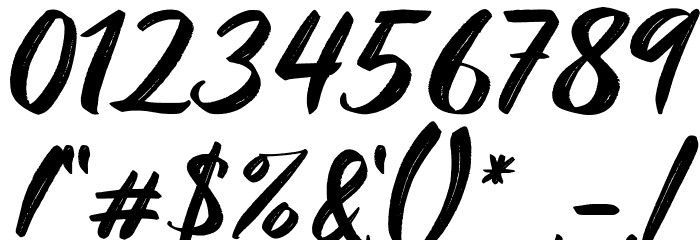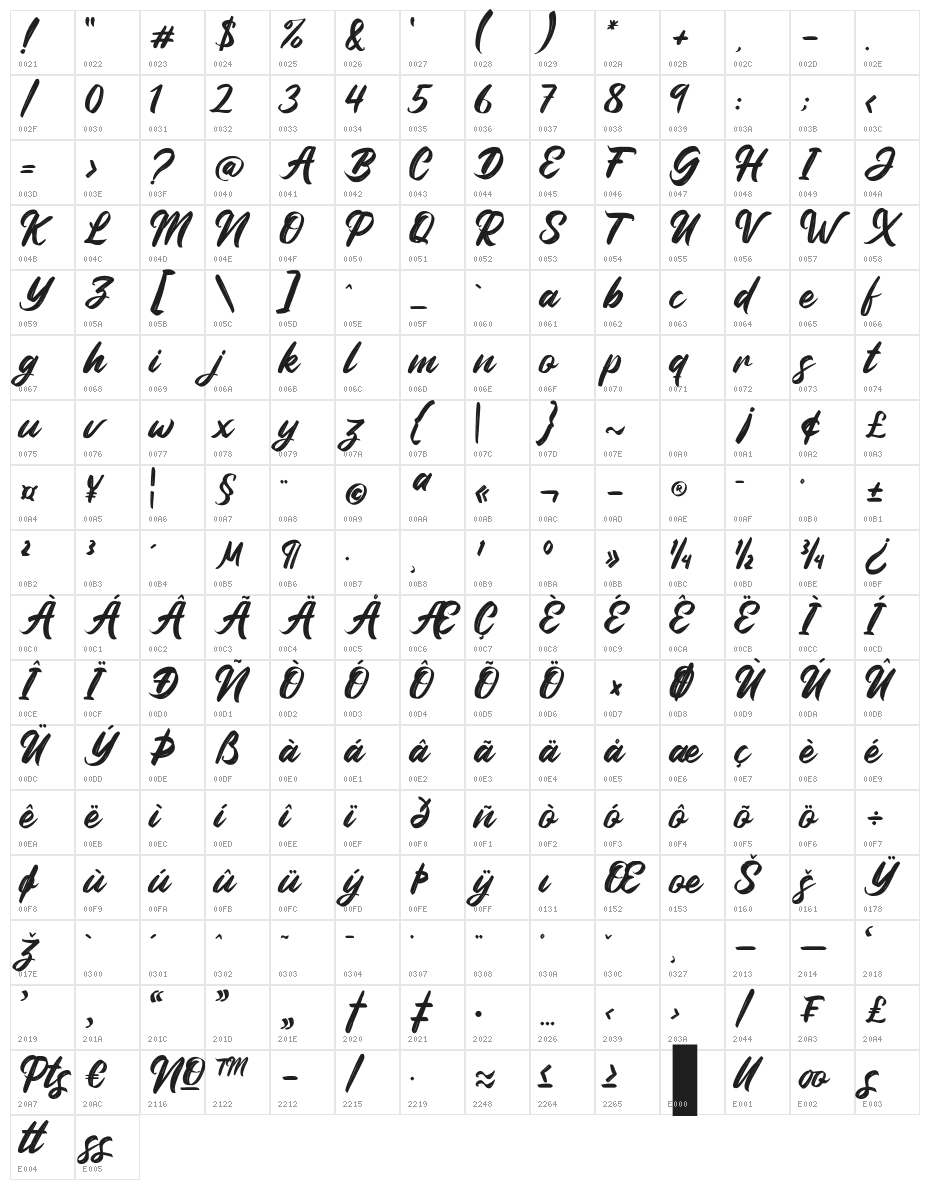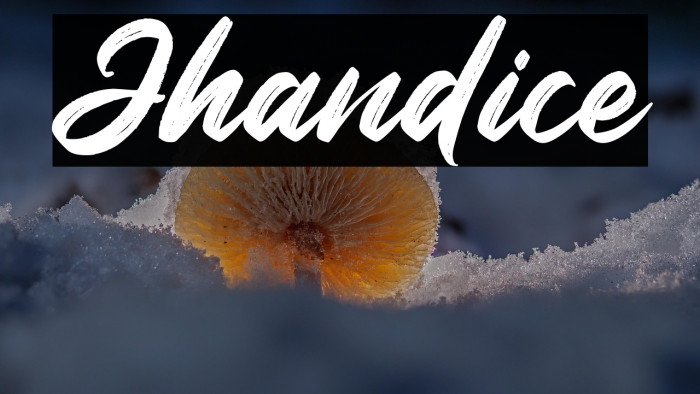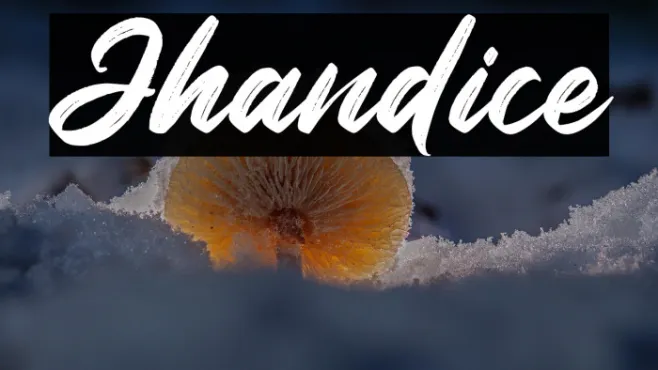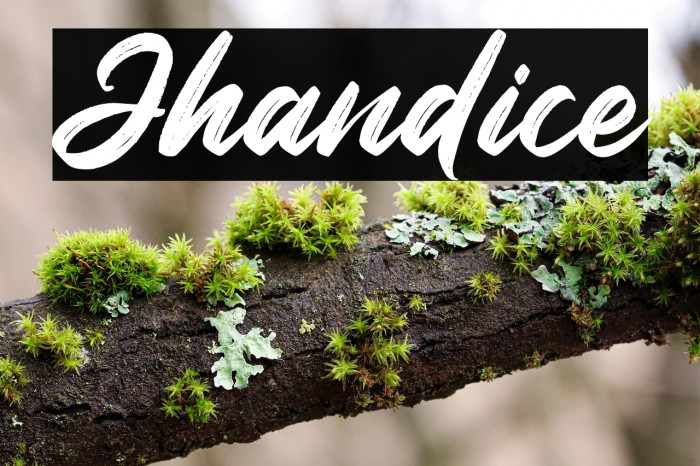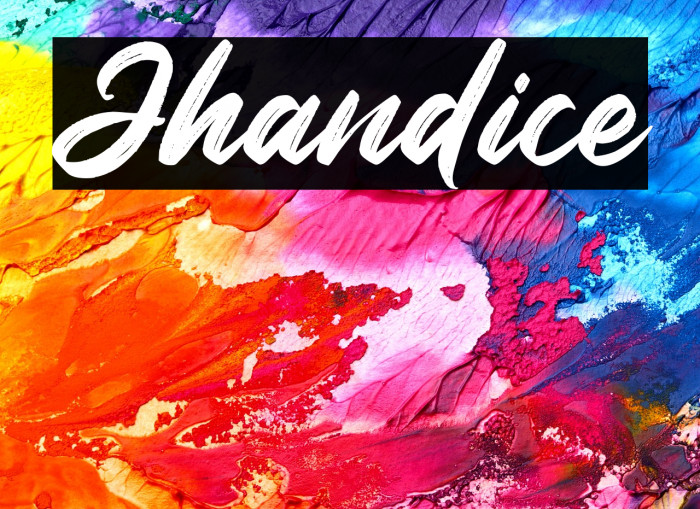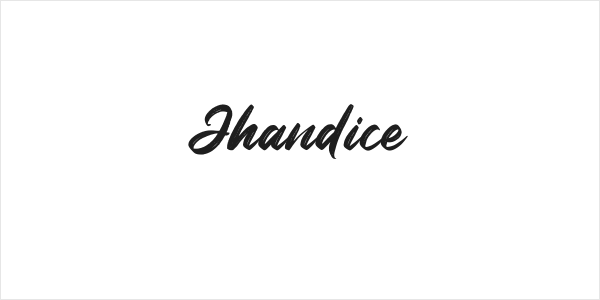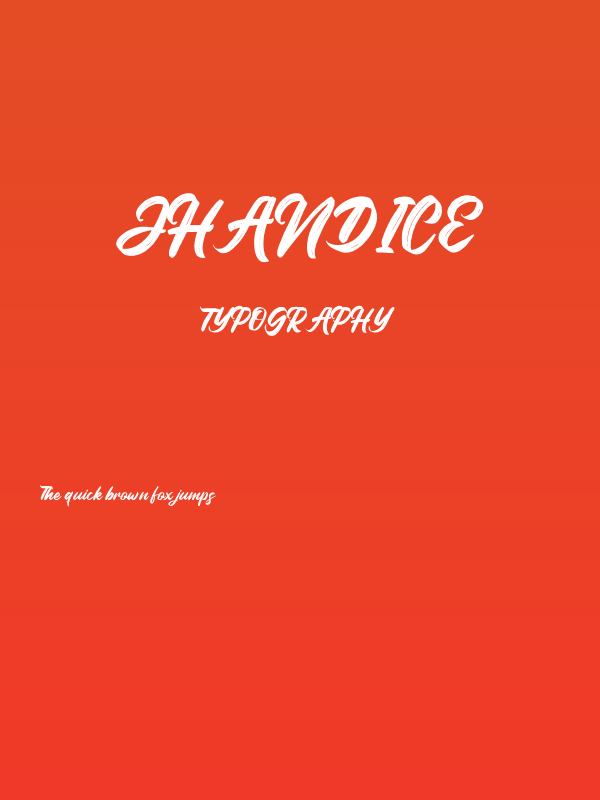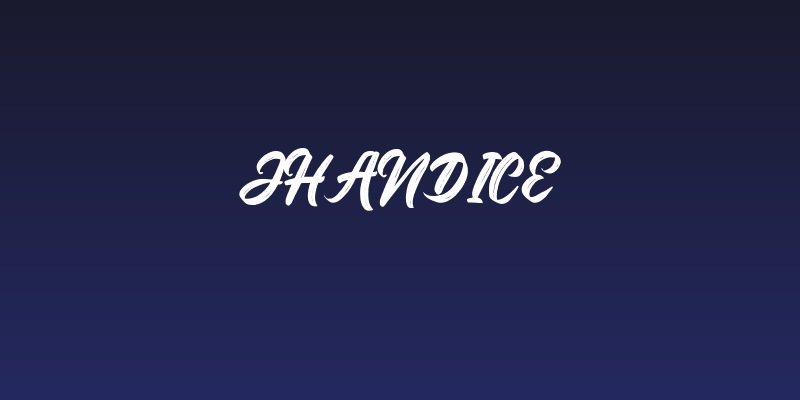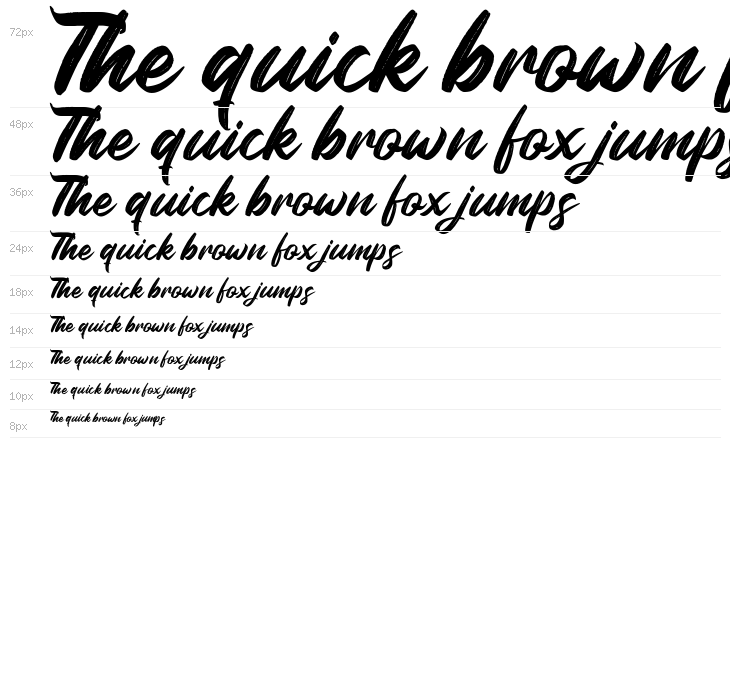
Jhandice Font
Jhandice Description
This font exudes a bold and dynamic script style, characterized by its flowing, cursive strokes and a sense of movement. The letters are interconnected, creating a seamless and elegant appearance. The uppercase and lowercase letters maintain a consistent style, with a slight slant that adds to the fluidity. The numbers and special characters are crafted with the same attention to detail, ensuring uniformity across all elements. The boldness of the strokes gives the font a strong presence, making it suitable for impactful designs. Its artistic flair and expressive nature make it ideal for creative projects that require a touch of sophistication and style.